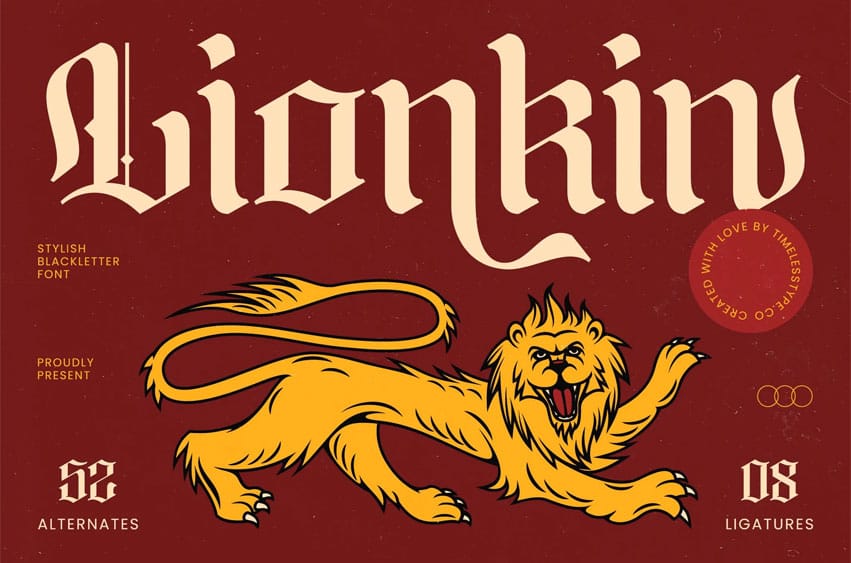
Lionkin Font is a Stylish Blackletter Font forged with bold medieval character, sharp gothic strokes, and a fierce visual presence. Designed to command attention, this typeface blends traditional blackletter aesthetics with modern refinement, making it perfect for branding that needs authority, grit, and timeless craftsmanship.
With 52 alternates and 8 ligatures, Lionkin gives designers full control to build expressive wordmarks, heraldic logos, metal-inspired titles, tattoo designs, gaming visuals, or vintage packaging. Every glyph is crafted with strong angles and majestic detail—ideal for designs that require both elegance and strength.